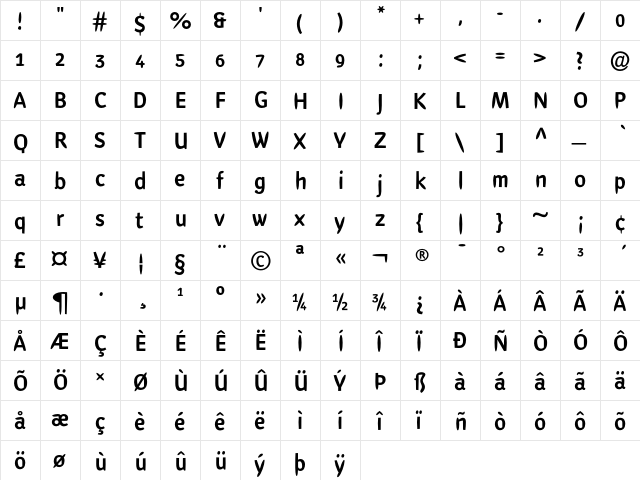
HavannaEF Bold
Design Context for HavannaEF Typeface
HavannaEF takes a measured approach to typography — its balanced proportions and neutral character make it a reliable workhorse for both digital and print work. Its bold stroke weight gives it real presence on the page.